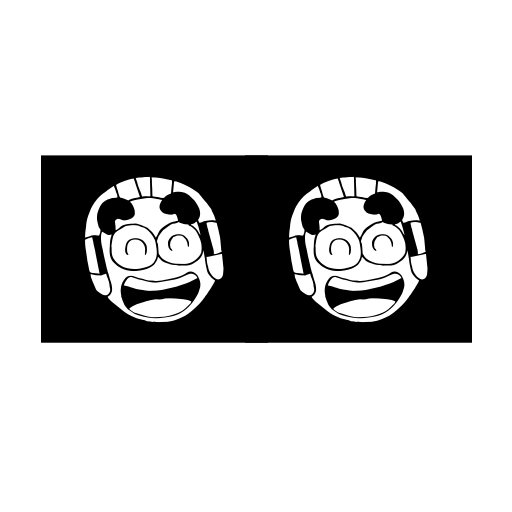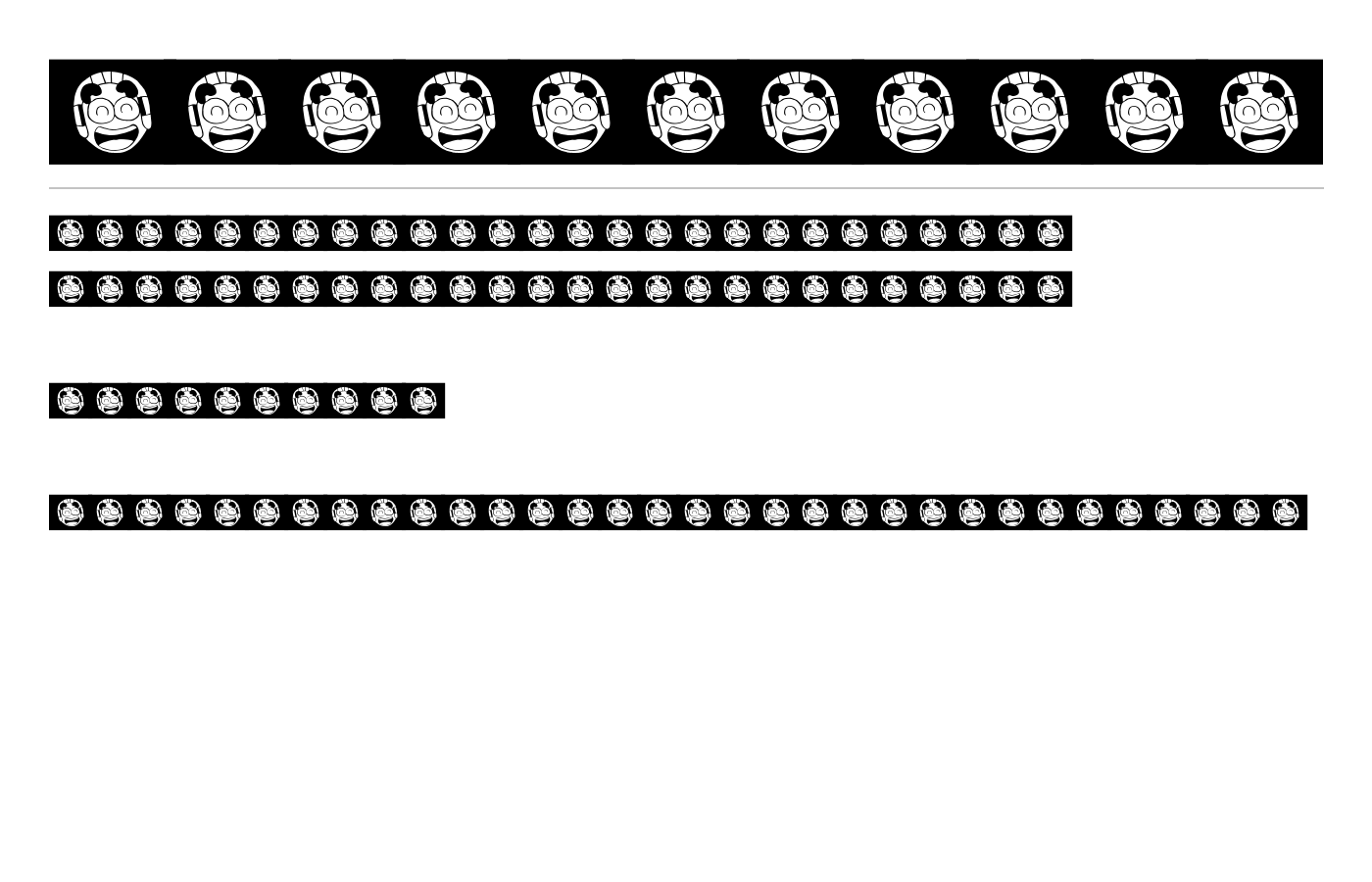
BANDA NEIRA is a playful display font composed entirely of a cheerful cartoon face repeated in various sizes, creating a bold and fun visual impact. This font is best suited for creative projects, children’s designs, or playful branding where a lighthearted and whimsical tone is desired. Its unique and informal style makes it ideal for headlines, posters, and logos that aim to capture attention with a joyful and distinctive character.
BANDA NEIRA Font
About BANDA NEIRA Font